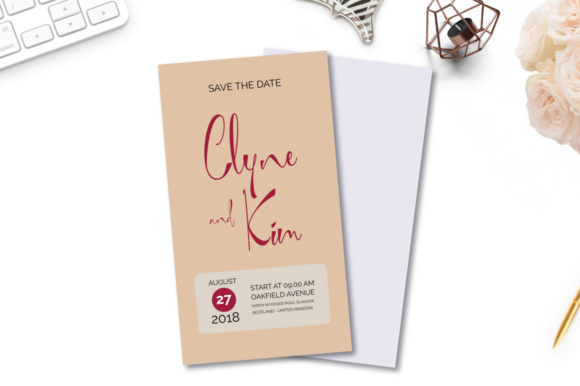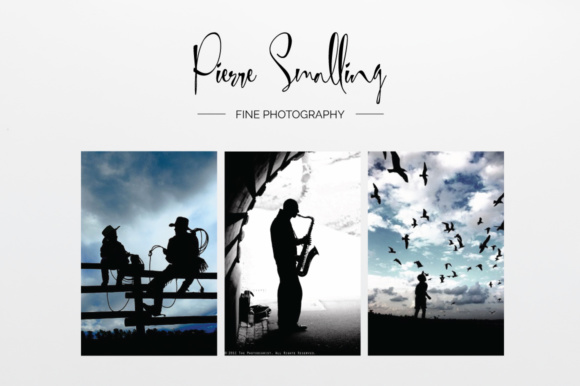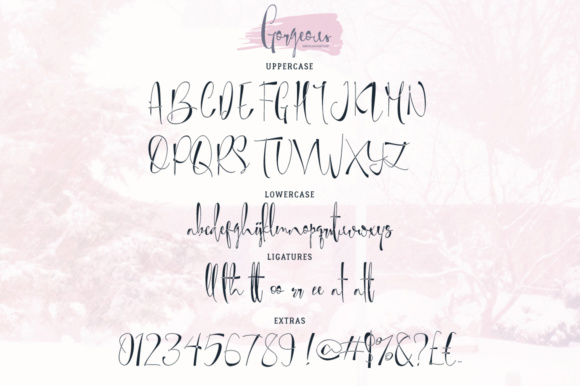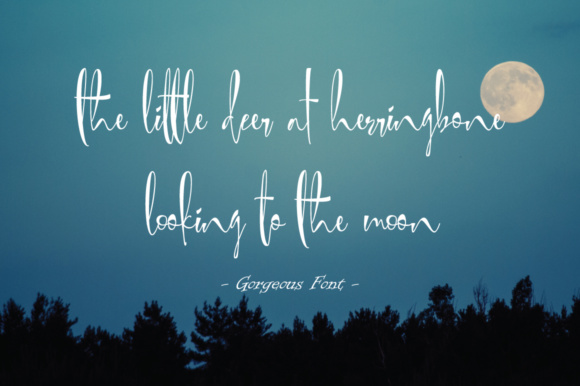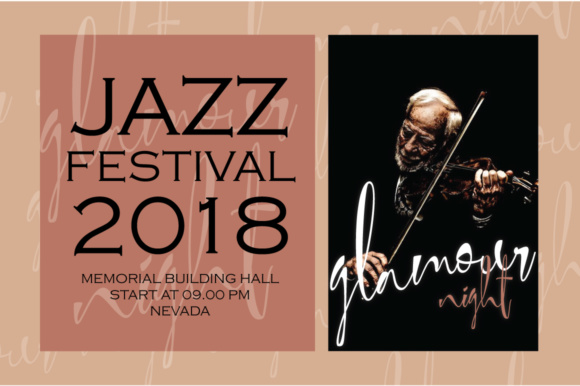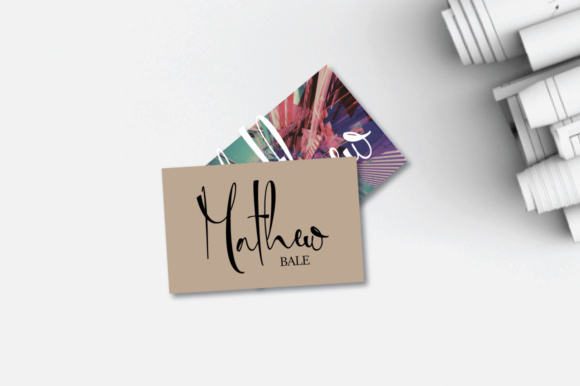
When Words Become Art: The Allure of Gorgeous Font
We’ve all been there – staring at a blank page, trying to find the perfect words to bring our creative vision to life. It’s the moment when inspiration strikes, and the right font can make all the difference. For designers, the perfect font can elevate a message, evoke emotions, and leave a lasting impression. That’s where Gorgeous Font comes in – a stunning, inky irregular script font that adds a touch of sophistication to any design.
Created to give your designs a real, semi-abstract feel, Gorgeous Font is perfect for those who want to add a dash of personality to their work. Its irregular lines and beautiful imperfections create a sense of distraction, yet fashionability. Whether you’re a seasoned designer or just starting out, Gorgeous Font is a valuable addition to your toolkit, offering endless possibilities for creative expression.
Gorgeous Font Key Features
- Font Styles: Gorgeous Font comes in 5 unique styles: Regular, Bold, Italic, Bold Italic, and Ornate, offering a wide range of options for designers and typographers.
- Unique Characteristics: The font features elegant, cursive lines, with intricate details and flourishes, making it perfect for creating beautiful, eye-catching typography.
Gorgeous Font Review
As a designer, I was excited to dive into the “Gorgeous Font” and see what it had to offer. Here’s my honest take on this font.
Unique aesthetic: The “Gorgeous Font” has a distinct look that’s perfect for projects that need a touch of elegance and sophistication.
Wide character set: The font includes a wide range of characters, including accents and symbols, making it versatile for use in various languages.
Easy to read: The font is well-designed for readability, with clear lines and shapes that make it easy on the eyes.
Limited font sizes: The font doesn’t perform well at very large or very small sizes, which can be a problem for titles or headings.
No italics or bold: The font doesn’t have italic or bold styles, which can limit its use in certain contexts.
The “Gorgeous Font” is a solid choice for projects that require a touch of class and sophistication. While it has some limitations, its unique aesthetic and wide character set make it a great option for designers looking for something new and interesting.
Tips for Getting the Most Out of Gorgeous Font
For the best results, use Gorgeous Font in conjunction with bold or italic styles to create visual contrast.
Additionally, pair the font with a clean and simple design to let the font take center stage.
Gorgeous Font is ideal for use in wedding invitations, branding materials, and social media graphics.
Its elegant and sophisticated style makes it perfect for creating a high-end or luxury aesthetic.